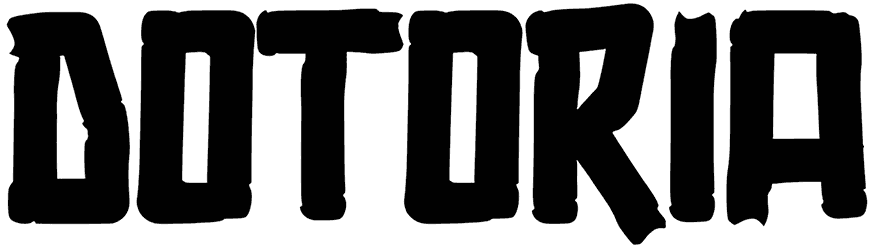
Dotoria Font
If you feed on outstanding script fonts and your projects need a bit of a restful cover in their texture, free up the time you spend on every design element and cut costs. Here, Dotoria with its marker face comes across to produce satisfying effects with its sweet urban touch.
This brush font while offering full characters except 3 and 6 could polish up your graphic in a catchy way. Grab it now and leave them to cast the spell on your work.